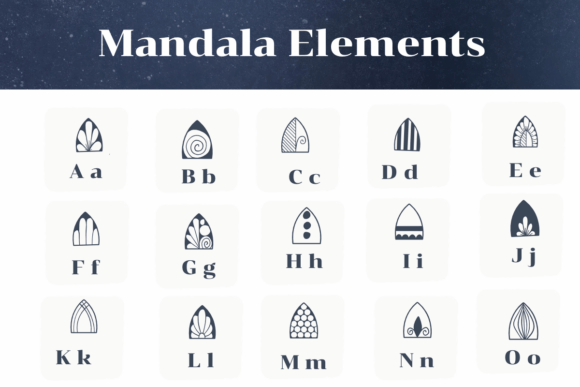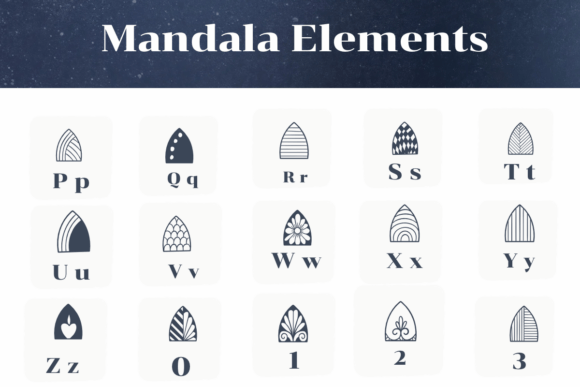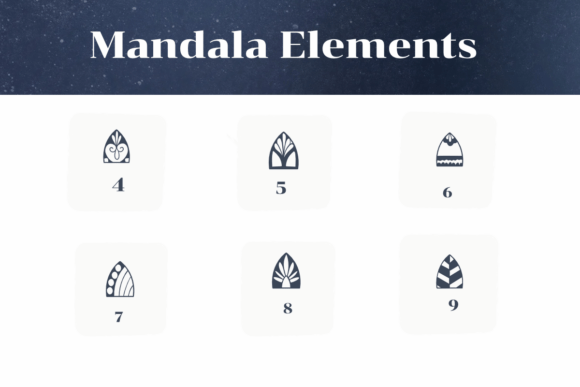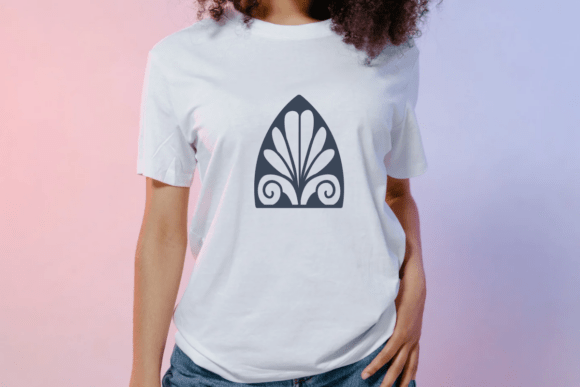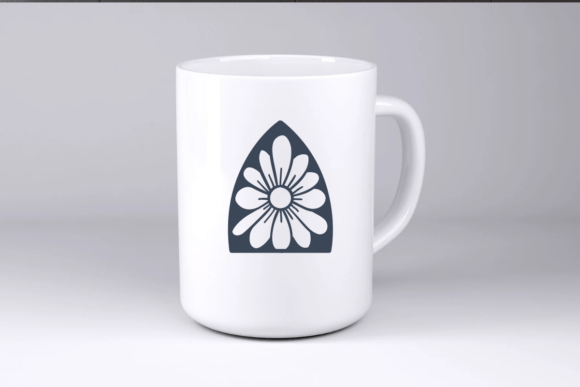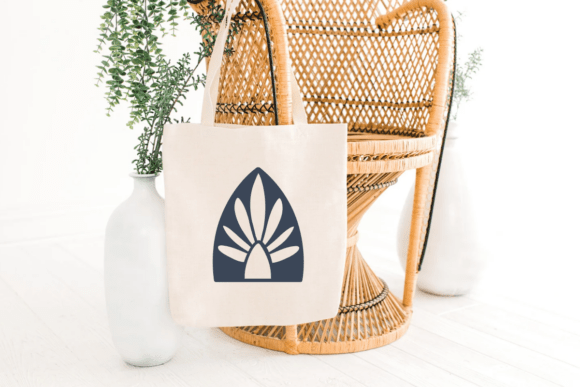
Introduction to Mandala Elements Font
As you sit at your desk, surrounded by half-finished projects and scattered ideas, the spark of creativity suddenly strikes – the perfect design for your upcoming wedding invitation or the intricate pattern for your next DIY craft. This moment of inspiration is what drives designers and crafty individuals to push the boundaries of their creativity. And that’s where the Mandala Elements Font comes in – a high-quality, sketched-style dingbats font that can elevate your creative projects to the next level.
With its unique, hand-drawn design and transparent background, the Mandala Elements Font is a valuable resource for designers and crafters alike. Whether you’re working on a custom logo, a decorative poster, or a personalized gift, this font can add that extra touch of elegance and sophistication. And the best part? It’s available for free download, making it an accessible design resource for anyone looking to take their creative projects to the next level.
Key Features of Mandala Elements Font
- High-quality, intricately designed elements for a creative project
- Transparent background for seamless integration into designs
- Perfect design resource for artists, designers, and crafters
- Unique, hand-drawn style elements for adding a personal touch to designs
Honest Review: Mandala Elements Font
As a designer, I’m always on the lookout for high-quality design resources to elevate my creative projects. The Mandala Elements Font caught my eye with its unique and intricate designs.
What works well: ✨ The font is incredibly versatile, making it perfect for a wide range of creative projects, from digital art to print materials. The transparent background allows for seamless integration with any design. The font is also free to download, making it an excellent addition to any design toolkit.
Some limitations: ⚠️ While the font is visually stunning, it can be overwhelming for some projects. The intricate details may not be suitable for simple or minimalistic designs. Additionally, the font may not be suitable for text-heavy projects, as the intricate designs may be distracting.
Overall impression: I’m impressed with the Mandala Elements Font, and I would recommend it to designers looking for a unique and high-quality design resource. With a little creativity, this font can be used to create stunning visual effects in your next project.
- Perfect for creative and artistic projects
The Mandala Elements Font is ideal for a wide range of creative projects, including graphic design, digital art, and web design. It’s also a great resource for those looking to add a touch of elegance and sophistication to their designs.